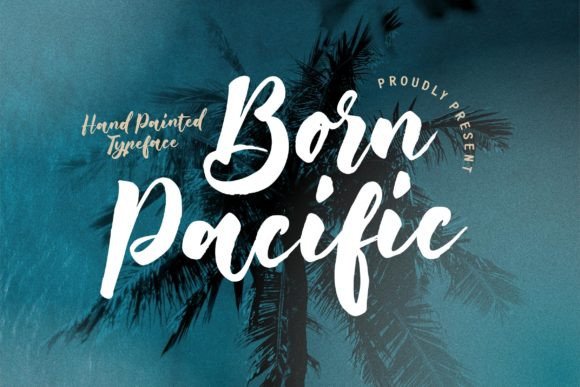
Born Pacific Font: The Perfect Handwritten Font for Your Branding and Design Needs
In the world of design, fonts play a crucial role in conveying the tone and personality of a brand. When it comes to creating a unique and memorable visual identity, choosing the right font is essential. Born Pacific Font is a stunning handwritten font that has gained popularity among designers and brands for its elegance, versatility, and charm. In this article, we’ll explore the features and benefits of Born Pacific Font and how it can elevate your branding, photography, invitations, and various design projects.
What is Born Pacific Font?
Born Pacific Font is a beautiful, handwritten font designed to add a personal touch to your designs. Its elegant and flowing script makes it perfect for creating visually appealing content that resonates with your audience. The font is carefully crafted to provide a unique and distinctive look that sets it apart from other fonts.
Key Features of Born Pacific Font
- Elegant Handwritten Script: Born Pacific Font boasts an elegant and flowing handwritten script that adds a touch of sophistication to your designs.
- Versatile and Adaptable: The font is highly versatile and can be used for various design projects, including branding, photography, invitations, and more.
- Easy to Read: Despite its elegant script, Born Pacific Font is easy to read, making it perfect for body text and captions.
- Scalable: The font is highly scalable, ensuring that it looks great on various devices and platforms.
Perfect for Branding
Branding is all about creating a unique and memorable visual identity that resonates with your target audience. Born Pacific Font is an excellent choice for branding projects, as it adds a personal touch to your logo, tagline, and marketing materials. The font’s elegance and sophistication make it perfect for:
- Logos: Create a stunning logo that reflects your brand’s personality and values.
- Business Cards: Add a touch of elegance to your business cards and make a lasting impression.
- Marketing Materials: Use Born Pacific Font in your brochures, flyers, and posters to create a cohesive brand image.
Ideal for Photography and Invitations
Born Pacific Font is also perfect for photography and invitation designs. Its elegant script adds a touch of sophistication to:
- Watermarks: Add a professional touch to your photos with a beautiful watermark.
- Invitations: Create stunning invitations for weddings, parties, and special events.
- Photo Captions: Use Born Pacific Font to add elegant captions to your photos.
Suitable for Various Design Projects
Born Pacific Font is a versatile font that can be used for various design projects, including:
- Advertisements: Create eye-catching ads that grab attention.
- Product Designs: Add a personal touch to your product designs, packaging, and labels.
- Stationery: Use Born Pacific Font in your letterheads, notebooks, and journals.
- Wedding Designs: Create beautiful wedding stationery, invitations, and decorations.
Why Choose Born Pacific Font?
With so many fonts available, why choose Born Pacific Font? Here are a few reasons:
- Unique and Distinctive: Born Pacific Font offers a unique and distinctive look that sets it apart from other fonts.
- Elegant and Sophisticated: The font’s elegant script adds a touch of sophistication to your designs.
- Versatile and Adaptable: Born Pacific Font can be used for various design projects, making it a great value for designers and brands.
Born Pacific Font is a stunning handwritten font that can elevate your branding, photography, invitations, and various design projects. Its elegant script, versatility, and charm make it a popular choice among designers and brands. Whether you’re looking to create a unique visual identity, add a personal touch to your designs, or simply want a beautiful font for your projects, Born Pacific Font is an excellent choice.
- What is Born Pacific Font?: Born Pacific Font is a beautiful handwritten font designed for branding, photography, invitations, and various design projects.
- Is Born Pacific Font easy to read?: Yes, despite its elegant script, Born Pacific Font is easy to read.